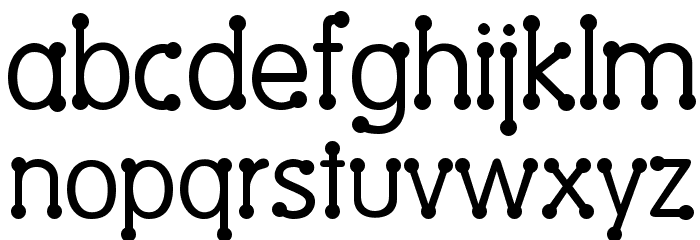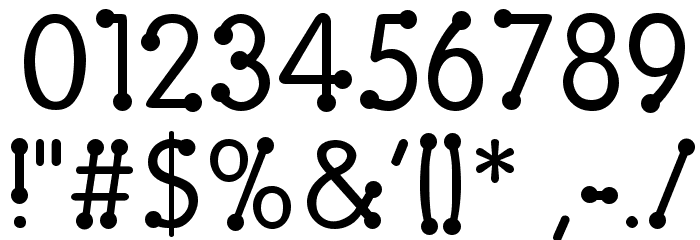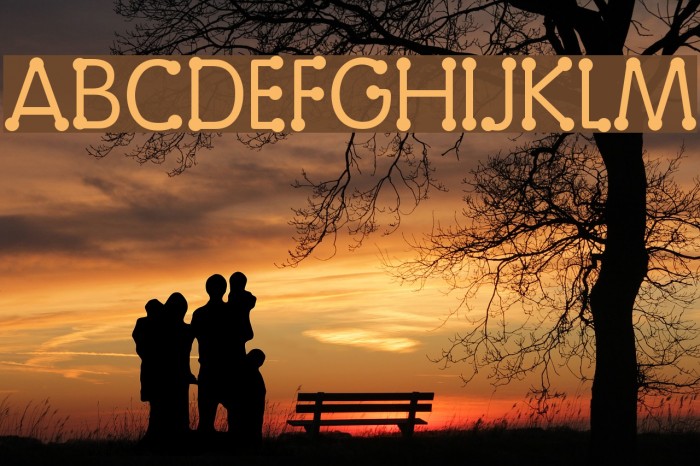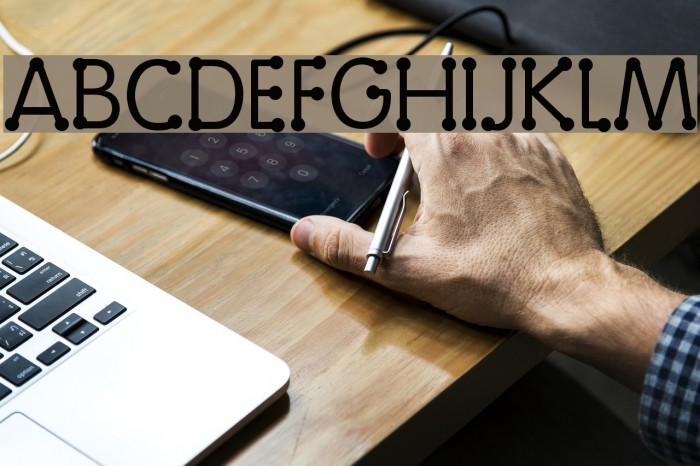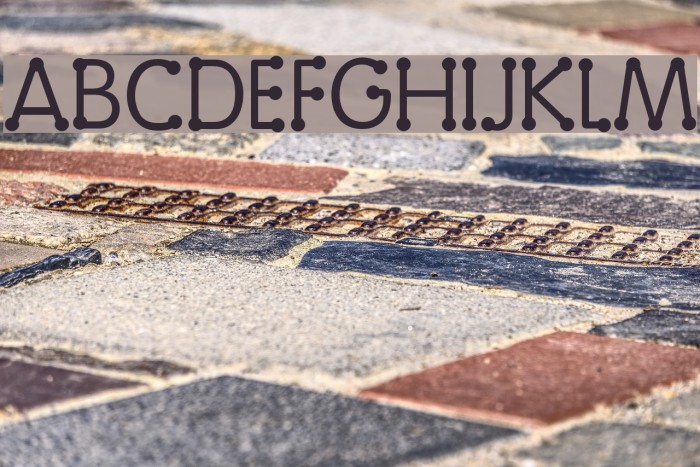
Vingy Normal Font
This font features a playful and unique design characterized by rounded terminals that resemble small dots at the ends of each stroke. The letters are evenly spaced, providing a clean and balanced appearance. The overall style is modern and slightly whimsical, making it suitable for creative and informal projects. The font maintains a consistent stroke width, offering a uniform look across all characters. Its distinctiveness lies in the dot-like terminals, which add a touch of fun and creativity to the text.
A modern, playful font with rounded dot-like terminals and consistent stroke width.
- Proposed Projects: Ideal for children's books, playful branding, creative posters, and informal invitations.